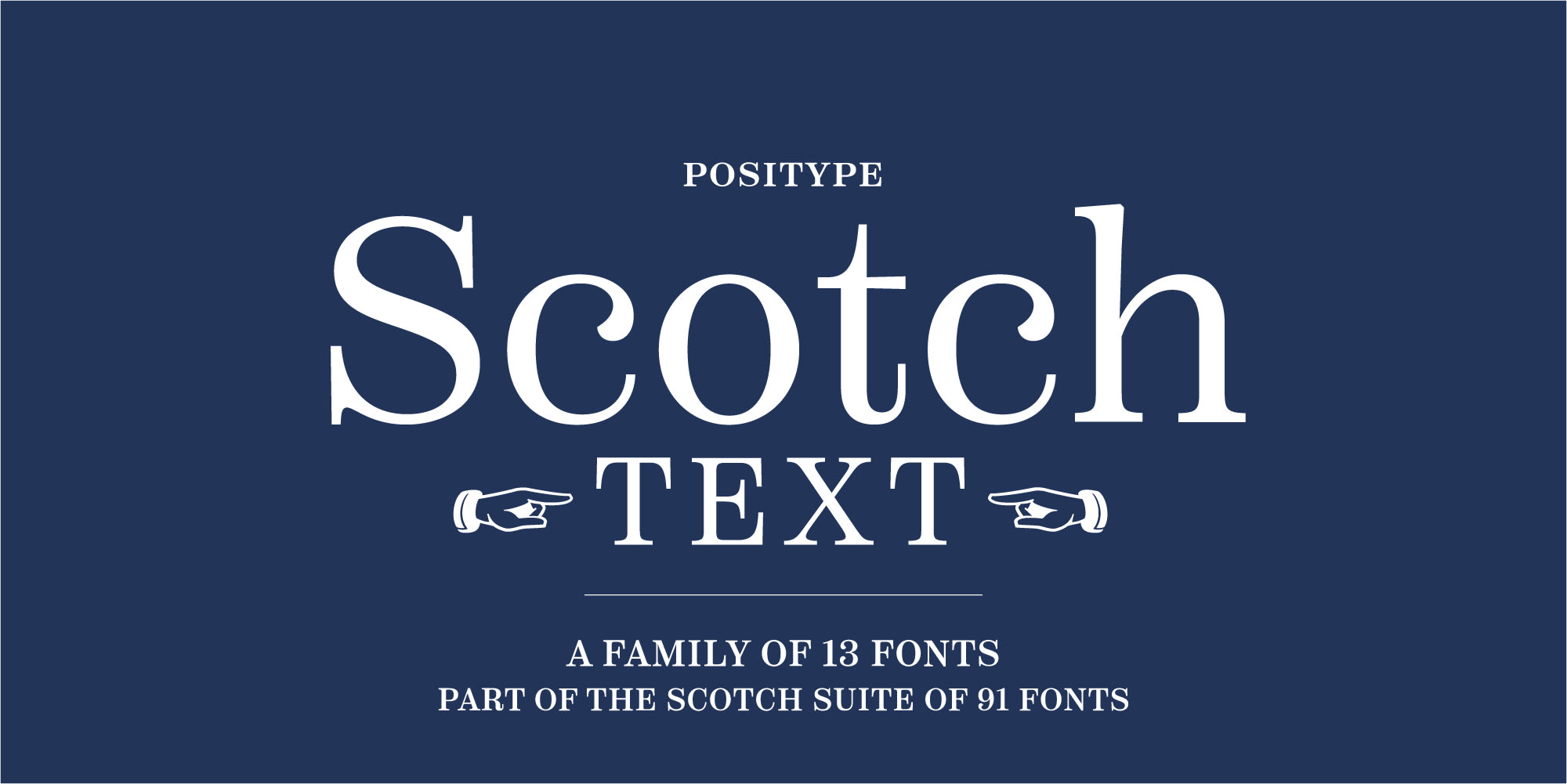
Scotch Text
Designer:Neil Summerour
OpenType Features
Th ffb ffi ffk
Standard Ligaturesliga
Small Caps
Small Capssmcp
12/49 3/17 42/89
Fractionsfrac
x2+a35=n8
Superscriptsups
C2H5OH
Scientific Inferiorssinf
1st 2nd 3rd
Ordinalsordn
[H] @ H¿
Case-Sensitive Formscase
0123456789
Tabular Numeralstnum
$1259
Stylistic Set 1ss01
Description
Clean, crisp, rational, familiar, modern… serifed. Positype Scotch reaches back to history just enough to produce something warm and easy on the eyes. No corners were cut, no quick tricks… this type suite was drawn for specificity: Text, Display, and Deck… ALL in 3 widths that now include Condensed and Compressed. Each unique, each inter-connected, each part of the whole.